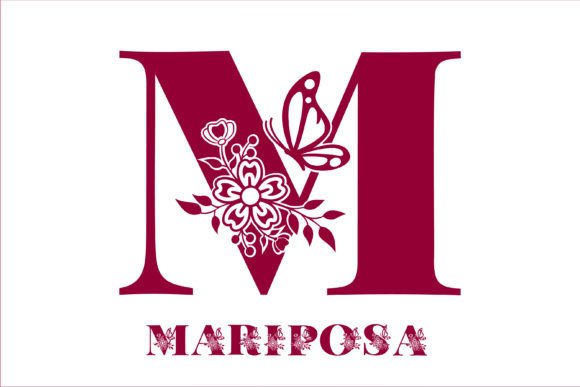
Introducing Mariposa Font, the exquisite decorative font that will add a touch of elegance to your creative projects. Created by susecreative, this font is specifically designed to capture the enchanting essence of beauty and the beast. With its delicate flower and butterfly motifs, Mariposa Font is sure to captivate your audience and leave a lasting impression.
Unleash your creativity and explore the endless possibilities that Mariposa Font has to offer. Whether you're designing a logo, crafting a unique brand identity, or enhancing your social media posts, this font will elevate your creations to new heights. Its intricate details and graceful curves evoke a sense of beauty and sophistication, making it the perfect choice for any project that requires a touch of elegance.
Crafted with meticulous attention to detail, Mariposa Font is not just a font; it's a work of art. Each letter is meticulously handcrafted to ensure a seamless and harmonious flow, allowing your text to stand out and make a statement. The combination of decorative elements and typography creates a visual feast for the eyes, making your designs truly eye-catching.
With Mariposa Font, your business cards will become more than just contact information; they will become miniature masterpieces that reflect your unique brand identity. The font's versatility allows it to adapt effortlessly to different design styles, ensuring that your business cards leave a lasting impression on potential clients and partners.
But Mariposa Font doesn't stop there. It's also perfect for various creative projects, such as invitations, posters, packaging, and more. Its ability to convey a sense of elegance and sophistication makes it an ideal choice for any occasion that calls for a touch of beauty and grace.
Don't settle for ordinary fonts when you can have extraordinary. Mariposa Font is here to elevate your designs and take them to the next level. Experience the magic of this font and watch as your creations come to life with a touch of charm and sophistication.